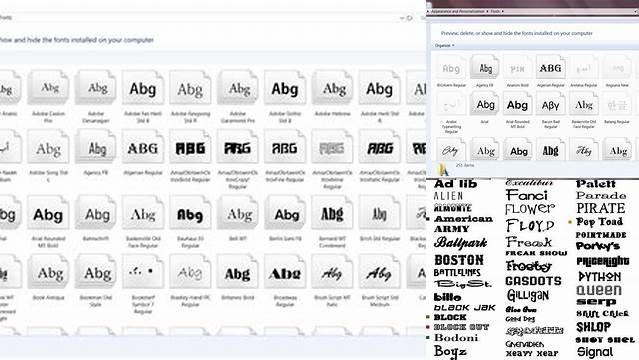
Download Free Fonts For Windows 7: The Ultimate Guide
Hey guys! Looking to spice up your Windows 7 with some fresh new fonts? You've come to the right place! This guide is your one-stop-shop for finding, downloading, and installing awesome fonts free download for windows 7. We'll dive into everything from the best websites to find these fonts, to how to install them correctly so your system looks fantastic. Let's get started!
1. Best Websites for Free Fonts for Windows 7
Finding the perfect font can feel like searching for a needle in a haystack, but don't worry, we've got you covered. There are tons of websites out there offering fonts free download for windows 7, but not all of them are created equal. Some have better selections, while others are more user-friendly, and it's crucial to stick to reputable sites to avoid any malware or copyright issues. Think of this section as your curated list of go-to sources for all things font-related. We will explore some of the top resources, highlighting their strengths and weaknesses to help you make the best choice for your needs. We'll look at sites with large libraries, user-friendly interfaces, and clear licensing information. We'll also discuss the importance of checking font licenses to ensure you're using them legally, especially if you're planning to use the fonts for commercial purposes. So, get ready to discover your new favorite font haven! We'll cover everything from well-established platforms with vast collections to hidden gems offering unique and stylish typefaces. Whether you're a seasoned designer or just looking to personalize your system, this section will equip you with the knowledge to find the perfect fonts for your Windows 7 machine. Keep in mind that consistent updates and a community-driven approach can also be good signals for a website’s quality. Let's dive in and explore the world of free fonts!
5. Best Font Styles for Different Purposes in Windows 7
So, you've got a ton of fonts free download for windows 7, but how do you know which ones to use for what? Choosing the right font can make a huge difference in how your documents, presentations, and designs look and feel. This section is all about helping you select the best font styles for different purposes. We'll explore different font categories, such as serif, sans-serif, script, and decorative fonts, and explain the characteristics of each type. We'll discuss which font styles are best suited for body text, headings, logos, and other design elements. We'll also delve into the psychology of fonts, explaining how different fonts can evoke different emotions and feelings. Think of it like picking the perfect outfit – the right font can make all the difference! We'll provide examples of specific fonts that work well in various contexts, such as Times New Roman for formal documents, Arial for clean web design, and Lobster for eye-catching headlines. Furthermore, we’ll cover key design principles, like readability, hierarchy, and visual consistency, to help you make informed font choices. By the end of this section, you'll have a solid understanding of font styles and how to use them effectively in your projects. Get ready to unleash your inner font connoisseur!
6. Serif Fonts: Classic and Elegant Choices
Serif fonts are like the classic, sophisticated members of the font family. They have these little strokes, called serifs, at the ends of the letters, which give them a traditional and elegant feel. When you fonts free download for windows 7, you'll likely come across many serif fonts, and they're a great choice for formal documents, books, and anything that needs a touch of class. This section will dive deep into the world of serif fonts, exploring their history, characteristics, and best uses. We'll look at popular serif fonts like Times New Roman, Garamond, and Georgia, discussing their unique features and applications. We'll also explore different serif subcategories, such as old-style serifs, transitional serifs, and modern serifs, highlighting their distinct appearances and historical contexts. Furthermore, we’ll delve into the nuances of serif typography, including things like kerning, leading, and tracking, to help you achieve optimal readability and visual appeal. We’ll even discuss how to pair serif fonts with other font styles to create visually harmonious designs. Think of this section as your masterclass in serif typography! We'll also provide tips on how to choose the right serif font for your specific project, considering factors like the tone, audience, and medium. By the end of this section, you'll be a serif font expert, ready to use these classic typefaces with confidence and style. So, let's explore the timeless elegance of serif fonts!
7. Sans-Serif Fonts: Modern and Minimalist Styles
If serif fonts are the classic choice, sans-serif fonts are their modern, minimalist cousins. Sans-serif fonts don't have those little strokes at the ends of the letters, giving them a cleaner, more contemporary look. When you fonts free download for windows 7, sans-serif fonts are a must-have for web design, headings, and anything that needs a sleek and modern feel. This section will take you on a journey through the world of sans-serif fonts, exploring their history, characteristics, and diverse applications. We'll examine popular sans-serif fonts like Arial, Helvetica, and Open Sans, discussing their individual features and ideal use cases. We'll also delve into different sans-serif subcategories, such as humanist sans-serifs, geometric sans-serifs, and grotesque sans-serifs, highlighting their unique aesthetics and design principles. Furthermore, we’ll discuss the importance of legibility in sans-serif typography, particularly when used in body text. We’ll also explore the use of sans-serif fonts in branding and logo design, emphasizing their ability to convey modernity and simplicity. We’ll even provide practical tips on how to choose the perfect sans-serif font for your next project, considering factors like the target audience, brand identity, and overall design goals. By the end of this section, you'll be a sans-serif font aficionado, ready to leverage these versatile typefaces in your designs. So, let's dive into the clean and contemporary world of sans-serif fonts!
8. Script Fonts: Elegant and Decorative Options
Script fonts are like the fancy, handwritten members of the font family. They mimic the flow and curves of handwriting, adding an elegant and decorative touch to your designs. When you fonts free download for windows 7, script fonts can be a fantastic way to create invitations, logos, and anything that needs a personal and stylish feel. This section will explore the captivating world of script fonts, uncovering their history, characteristics, and diverse applications. We'll delve into different script font styles, such as formal scripts, casual scripts, and calligraphic scripts, highlighting their unique aesthetics and ideal use cases. We'll also examine popular script fonts like Brush Script, Pacifico, and Lobster, discussing their individual features and design considerations. Furthermore, we’ll explore the nuances of using script fonts effectively, emphasizing the importance of legibility and context. We'll also discuss the role of script fonts in creating a sense of personality and emotion in design. We’ll even provide guidance on how to pair script fonts with other font styles to achieve visual harmony. By the end of this section, you'll be a script font connoisseur, ready to incorporate these elegant typefaces into your projects. So, let's dive into the beautiful world of script fonts and discover their decorative charm!
9. Decorative Fonts: Unique and Eye-Catching Choices
Decorative fonts are the wild cards of the font world! They're designed to be unique and eye-catching, often with unusual shapes, details, and embellishments. When you fonts free download for windows 7, decorative fonts can be perfect for headlines, posters, and anything that needs to grab attention. This section will take you on a thrilling journey through the exciting world of decorative fonts, exploring their history, characteristics, and bold applications. We'll delve into various types of decorative fonts, such as display fonts, novelty fonts, and grunge fonts, showcasing their diverse aesthetics and design purposes. We'll also examine the role of decorative fonts in creating visual impact and memorability. Furthermore, we’ll emphasize the importance of using decorative fonts sparingly and strategically, as they are best suited for headlines and short bursts of text. We’ll also provide insights on how to balance decorative fonts with more legible font styles to ensure overall readability. Think of this section as your creative playground for typography! We'll even provide inspiration and examples of how to use decorative fonts effectively in different design contexts. By the end of this section, you'll be a decorative font explorer, ready to unleash your creativity and make a statement with these unique typefaces. So, let's dive into the bold and captivating world of decorative fonts!